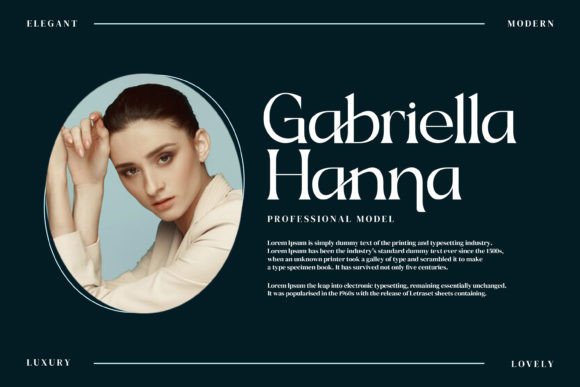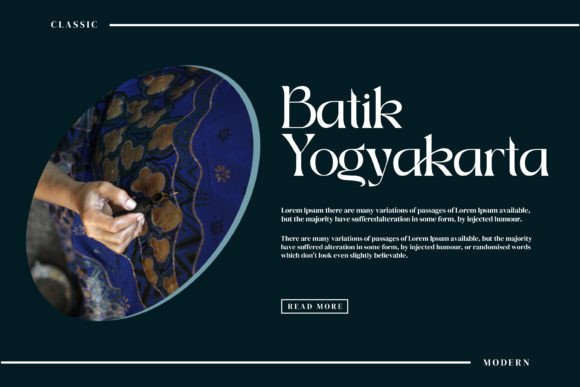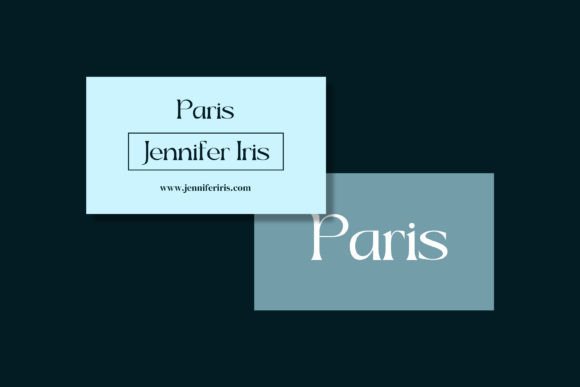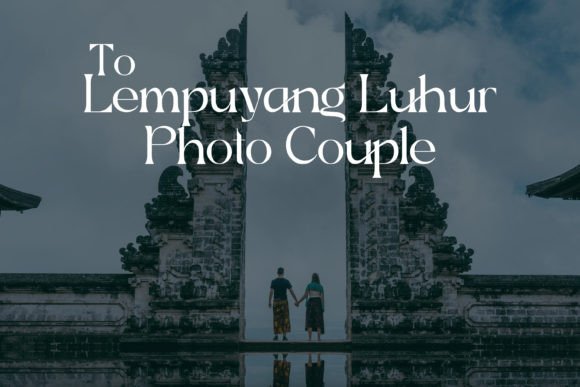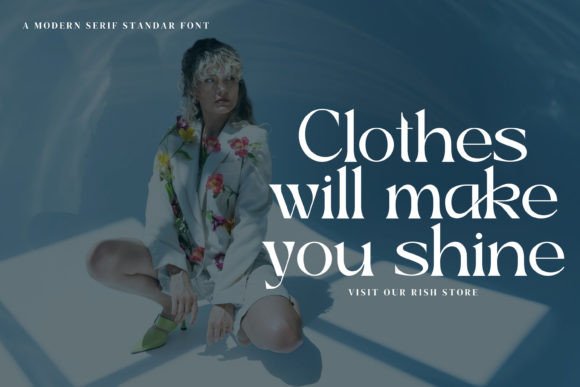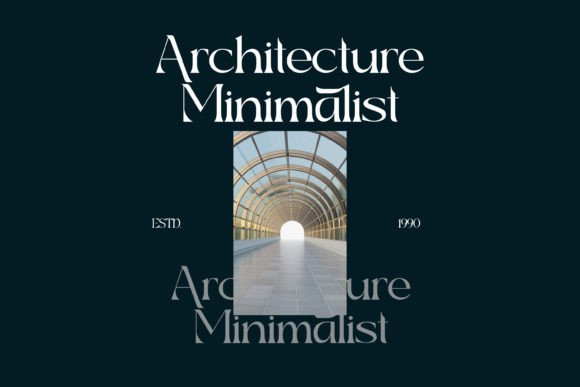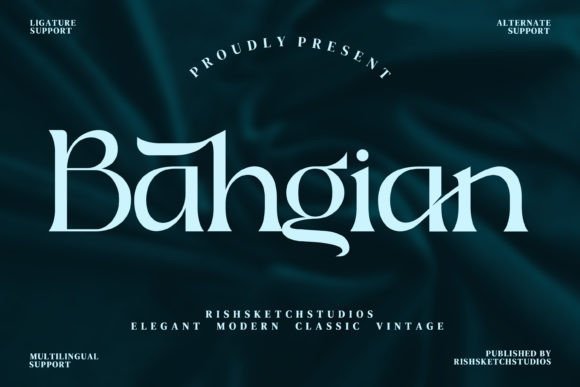
Bahgian Font: Elevate Your Designs with Elegance and Sophistication
Are you looking for a font that can add a touch of luxury and refinement to your designs? Look no further than the Bahgian Font. This stunning serif font boasts sharp lines and intricate curves, making it perfect for designers and crafters who want to create elegant and sophisticated visual content.
What Makes Bahgian Font Special?
The Bahgian Font is a masterpiece of typography, featuring a unique blend of sharp lines and detailed curves that set it apart from other fonts. Its serif design gives it a classic and timeless look, while its intricate details add a level of sophistication that’s hard to match. Whether you’re working on a branding project, a website design, or a craft project, this font is sure to impress.
One of the standout features of the Bahgian Font is its PUA (Private Use Area) encoding. This means that you can access all of the font’s amazing glyphs and ligatures with ease, giving you a wide range of creative possibilities. With PUA encoding, you can easily insert special characters, swashes, and other unique elements into your designs, taking them to the next level.
The Bahgian Font is a versatile font that’s perfect for a wide range of design applications. Whether you’re a professional designer or a crafty DIY enthusiast, this font is sure to become a favorite. Here are just a few ways you can use the Bahgian Font:
- Branding and Logo Design: Create stunning logos and brand identities with the Bahgian Font’s elegant and sophisticated design.
- Website Design: Add a touch of luxury to your website with the Bahgian Font’s classic serif design.
- Crafting and Scrapbooking: Use the Bahgian Font to add a personal touch to your craft projects, such as scrapbooking, card making, and journaling.
- Advertising and Marketing: Create eye-catching ads and marketing materials with the Bahgian Font’s unique and sophisticated design.
Tips for Using the Bahgian Font
To get the most out of the Bahgian Font, here are a few tips to keep in mind:
- Pair it with a sans-serif font: The Bahgian Font’s serif design pairs perfectly with sans-serif fonts, creating a beautiful contrast that’s both elegant and modern.
- Experiment with font sizes: The Bahgian Font looks great in a variety of font sizes, from large headings to smaller body text.
- Use it sparingly: Because of its luxurious and sophisticated design, it’s best to use the Bahgian Font sparingly to avoid overwhelming your design.